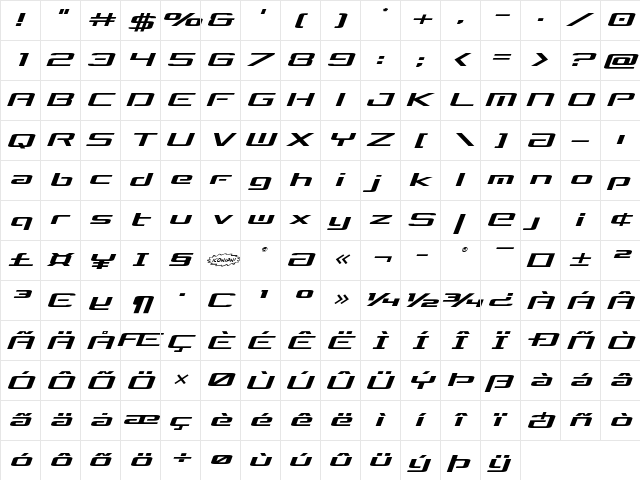
Design Context for Concielian Break Expanded Semi-Italic Typeface
Concielian Break Expanded Semi-Italic offers clean, dependable letterforms without strong stylistic allegiance, making it a practical choice for designers who need flexibility. Its italic angle brings a sense of urgency and motion to the letterforms.
Pro Tip: Try Concielian Break Expanded Semi-Italic for annotation and caption copy alongside an upright companion — the contrast in angle creates a dynamic but ordered typographic system.